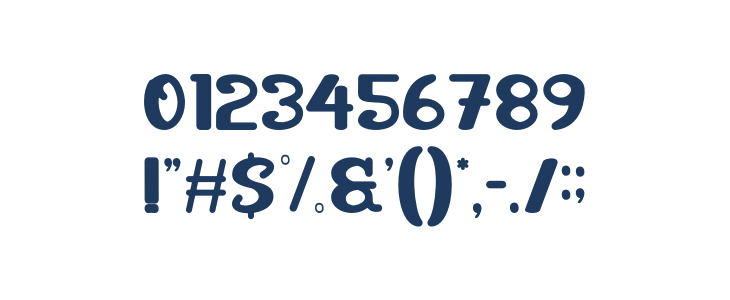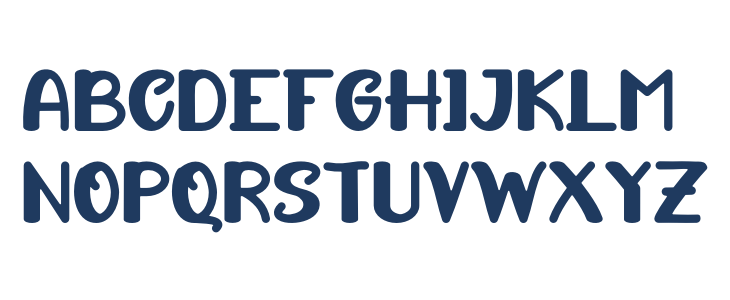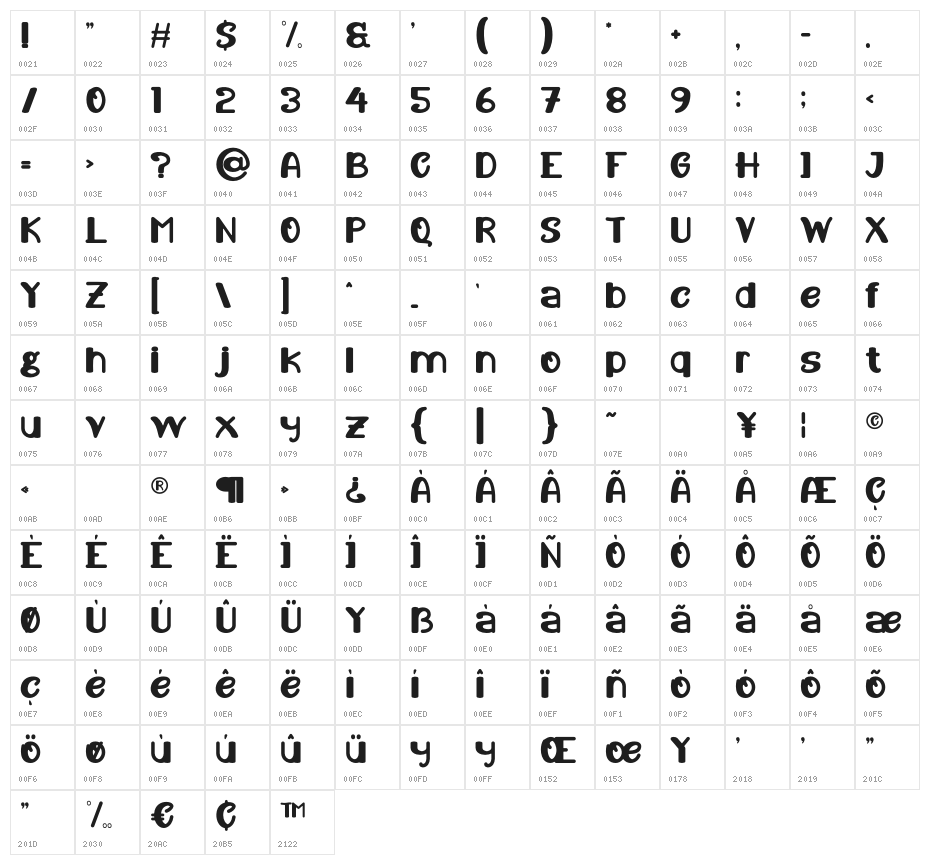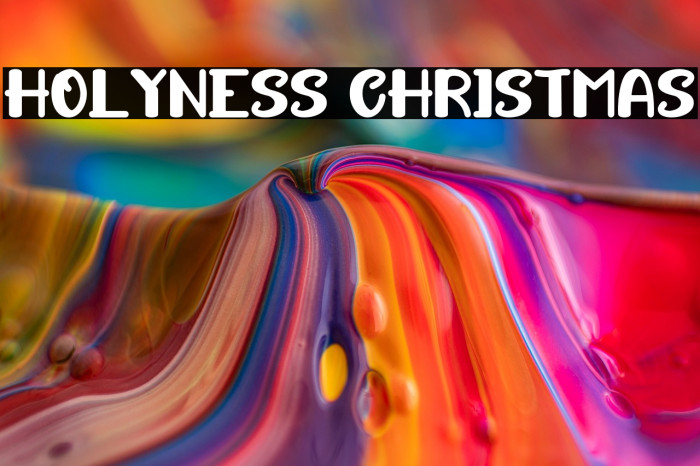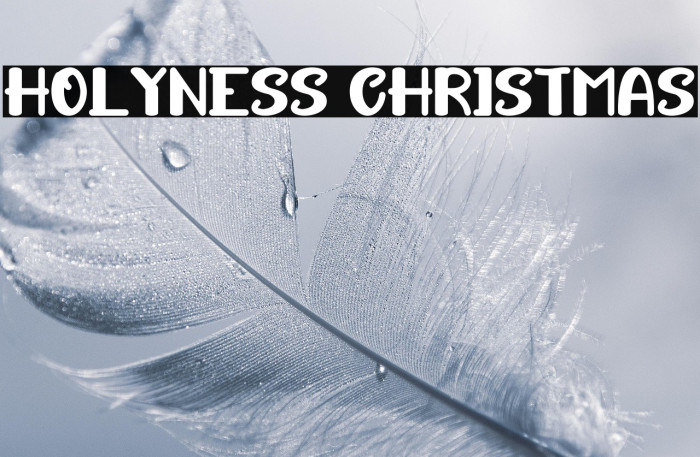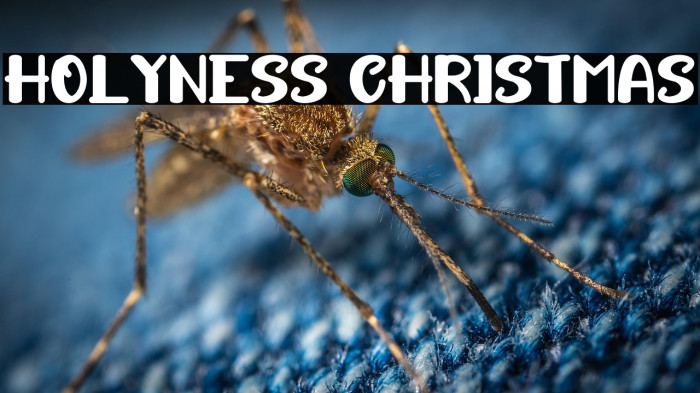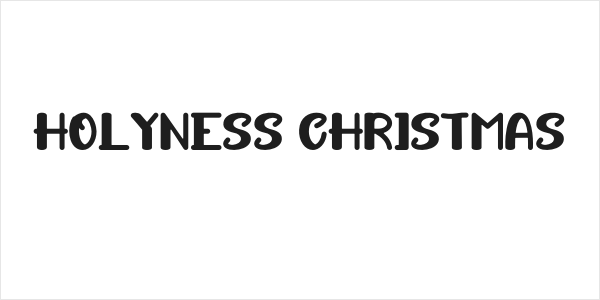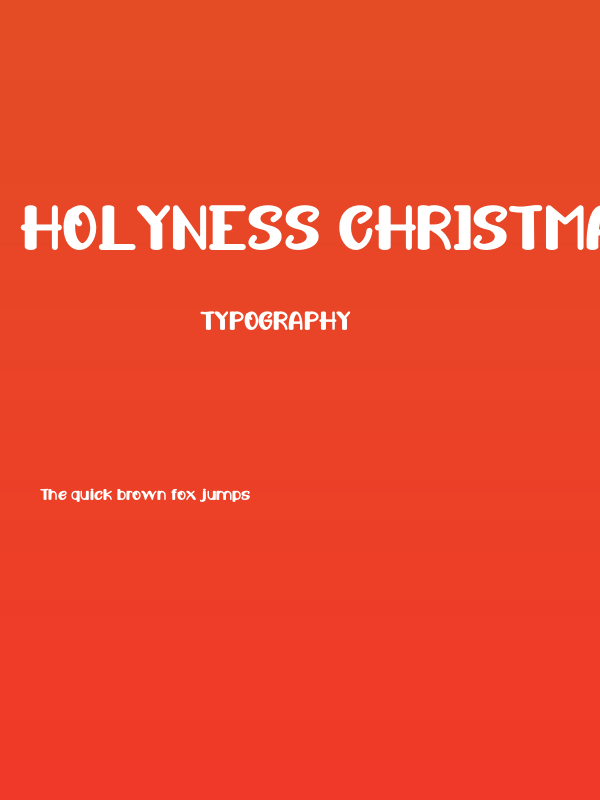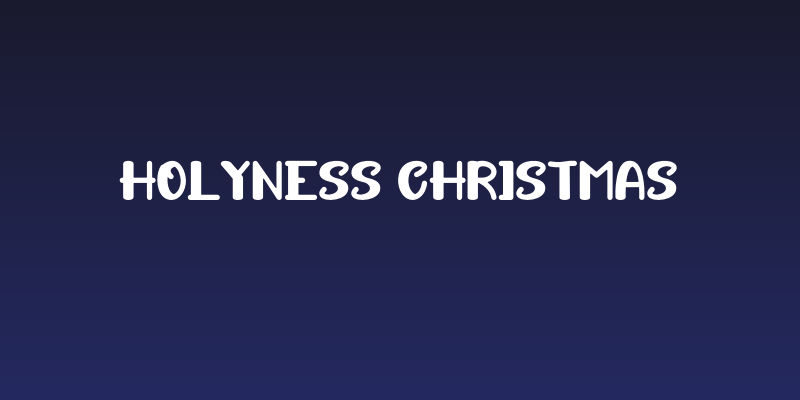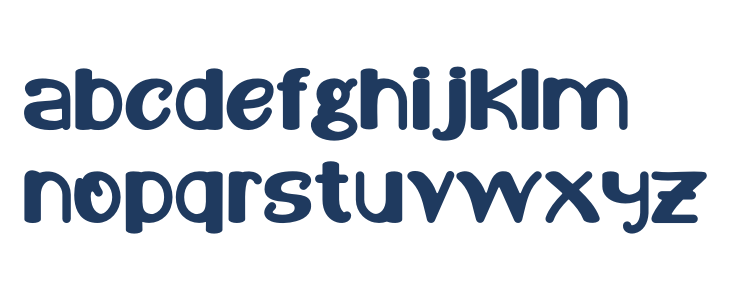
HOLYNESS CHRISTMAS Font
HOLYNESS CHRISTMAS Description
A playful, rounded sans-serif font with bold, thick strokes and whimsical curves, giving it a friendly and approachable appearance. The characters are evenly spaced with consistent weight, and the overall design is informal and fun.
| Overall Style | Decorative, Playful, Modern |
| Use Case | Headlines, Posters, Logos, Invitations |
| Proposed Projects | ChildrenΓ’β¬β’s books, holiday cards, posters, party invitations, branding for playful products. |